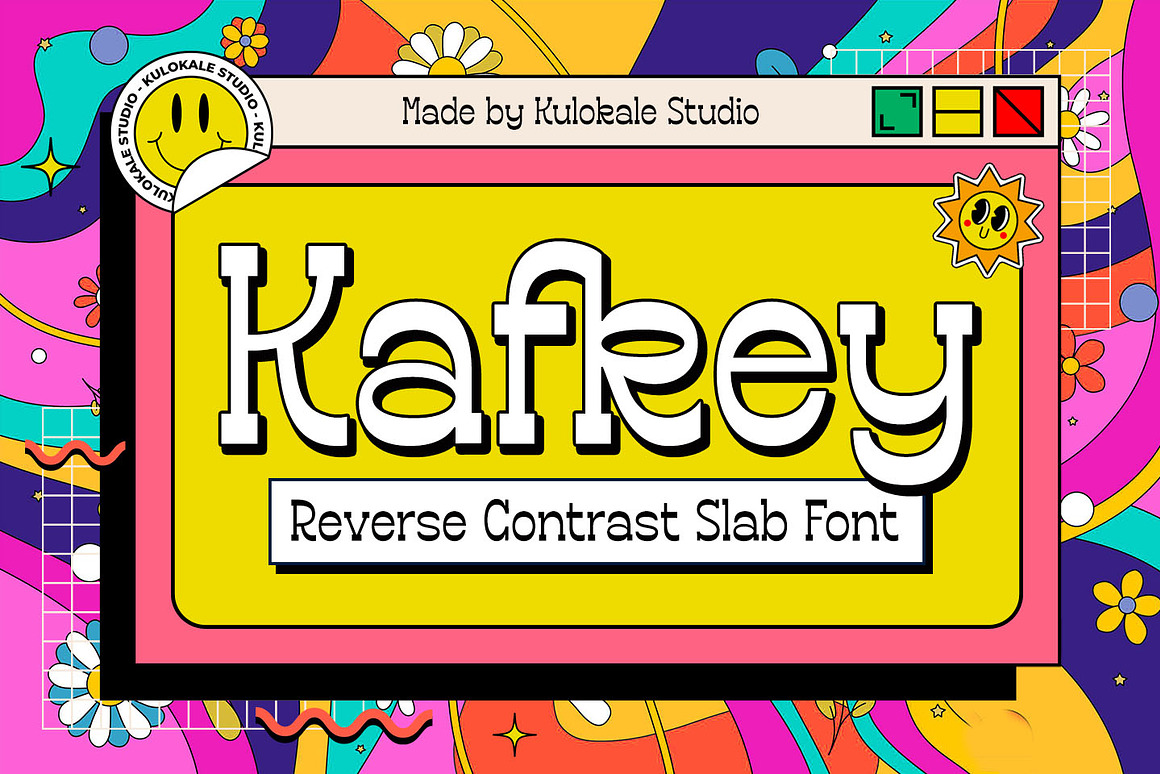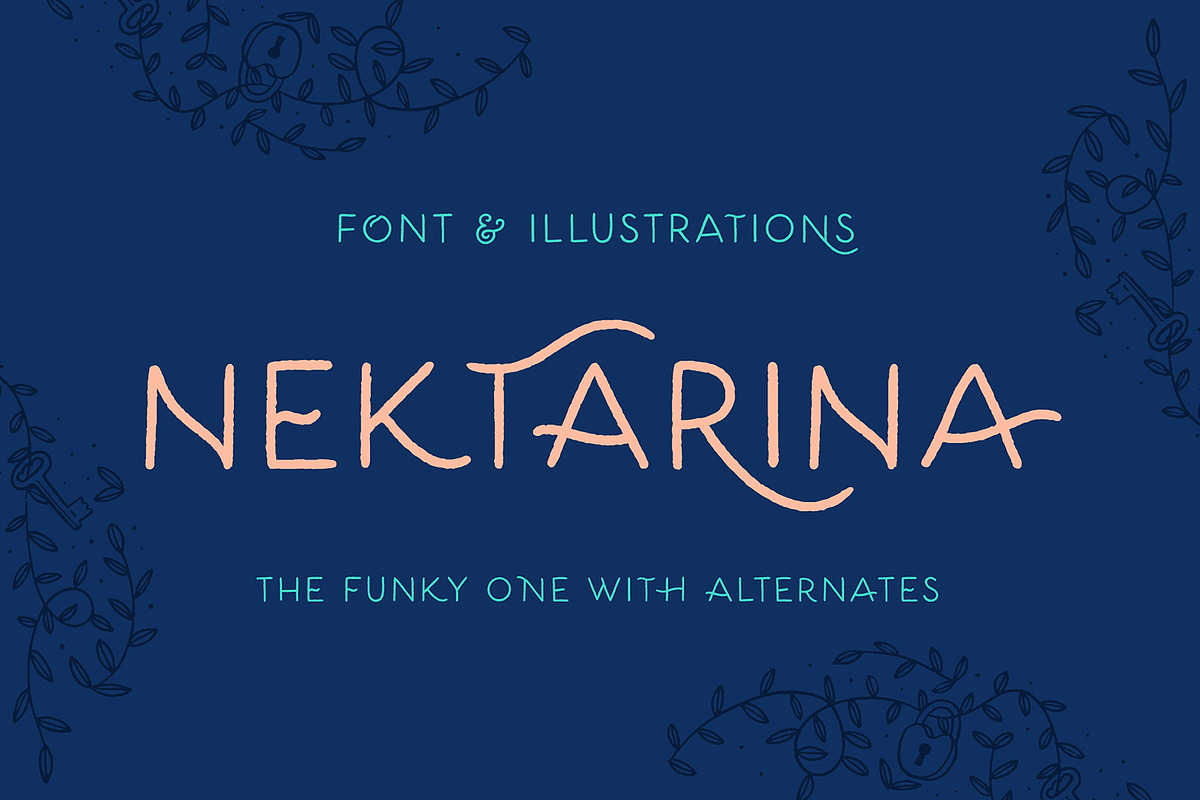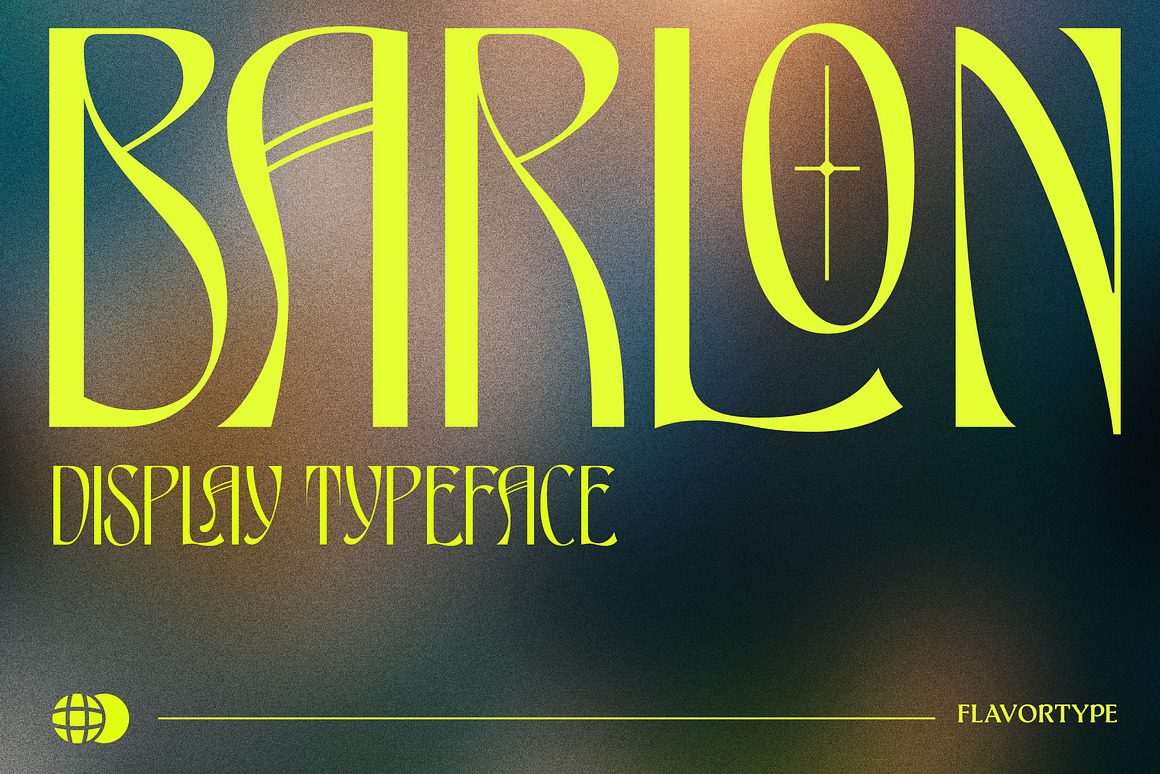
9+ Funky Fonts: Adding Personality and Flair to Your Visual Content
Are you tired of the same old fonts and seeking something fresh to add flair to your designs? If so, delve into the world of funky fonts, where individuality meets expression.
Our selection of the best manga fonts promises to inject personality and charm into your projects, offering a unique twist to traditional design elements. With these fonts, your creations will stand out, grabbing attention and leaving a lasting impression on your audience.
Say goodbye to boring designs and hello to creativity with our curated list of the best funky fonts. These fonts are guaranteed to inject personality and charm into your projects, captivating your audience like never before. Ready to jazz up your designs? Let’s explore the top funky fonts that will elevate your creativity to new heights. And while you’re at it, don’t forget to check out our recommendations for cool and groovy fonts too!
1. Hulahoy Funky Font
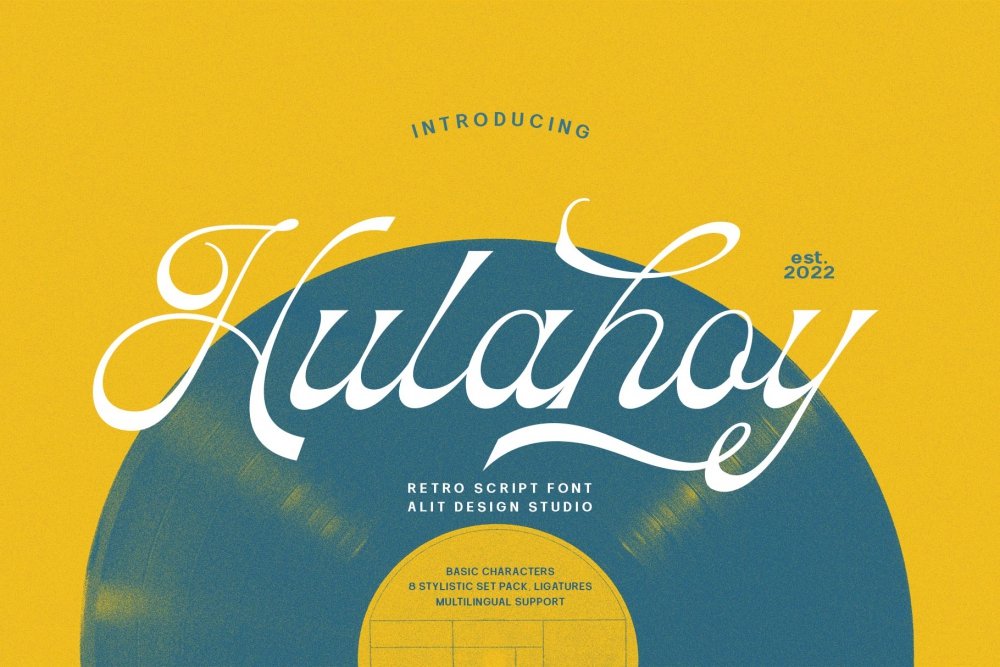
Introducing Hulahoy Typeface! Drawing inspiration from the vibrant design era of the 70s, this font embodies a playful, groovy, and timeless aesthetic. With its unique charm and memorable appeal, Hulahoy effortlessly elevates any design project. Whether it’s a fun and quirky concept or a nostalgic nod to the past, this font adds a touch of whimsy and character.
2. Kafkey Funky Display Slab Font
Meet Kafkey, a vibrant display slab serif font perfect for advertising, branding, packaging, and more. Available in Regular and Oblique styles, it offers versatility for various design needs. With Unicode PUA encoding, accessing additional characters is a breeze. For optimal usage, utilize programs like Adobe Illustrator or Photoshop CC to explore all glyph variations. Unleash your creativity with Kafkey and elevate your designs to new heights!
3. Kroma Modern Display Font
Dive into the world of vibrant typography with Kroma Display Font Family. Perfect for professional logos, web design, magazine covers, and more, Kroma’s versatility knows no bounds. Its highly contrasting contours bring life to type projects and headlines, while its extensive glyph library of over 350 characters offers endless style options. With features like uppercase glyphs, OTF + TTF files, and multi-language support, Kroma Display is your go-to choice for any creative project. Experience the freedom to express with Kroma Display and watch your designs flourish!
4. Nektarina Handwritten Funky Font & Extras
Check out this cool font called Nektarina Handwritten Funky Font! It’s like fancy handwriting with a fun twist. You get all the regular letters you need plus more than 200 extra ones to play around with.
It’s perfect for making your own designs. You can change up the letters to make something totally unique! And it comes with some bonus stuff too: 10 pictures you can use, 6 fancy circles, and 8 cool lines to separate your text. So, if you’re into making things look awesome, this font is for you!
5. Sake Moru Display Funky Font
Check out this cool font called Sake Moru Display Funky Font! It’s kind of experimental and looks really unique. You can use it for things like ads, logos, packaging, and making titles stand out.
This font comes in two styles: Regular and Outline Version, so you can choose the one that suits your project best.
For the best experience, we recommend using programs like Adobe Illustrator, Photoshop, InDesign, or CorelDraw. That way, you can see and use all the different variations of the font.
6. Macron | Vintorian Font
Barlon font has a really cool style that stands out. It’s inspired by the Art Nouveau era and mixes in ideas from other art styles too. When you use it, your designs will look classic yet modern, just like the example you see above.